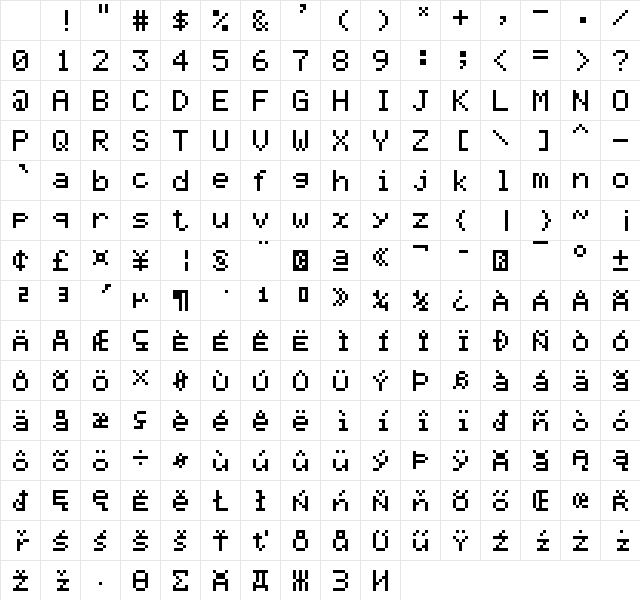
Complete Graph 35+ pix Regular glyph index. Displaying only characters natively supported by Graph 35+ pix Regular font.
Graph 35+ pix is a composed and adaptable typeface that performs quietly and consistently across a wide range of design contexts.